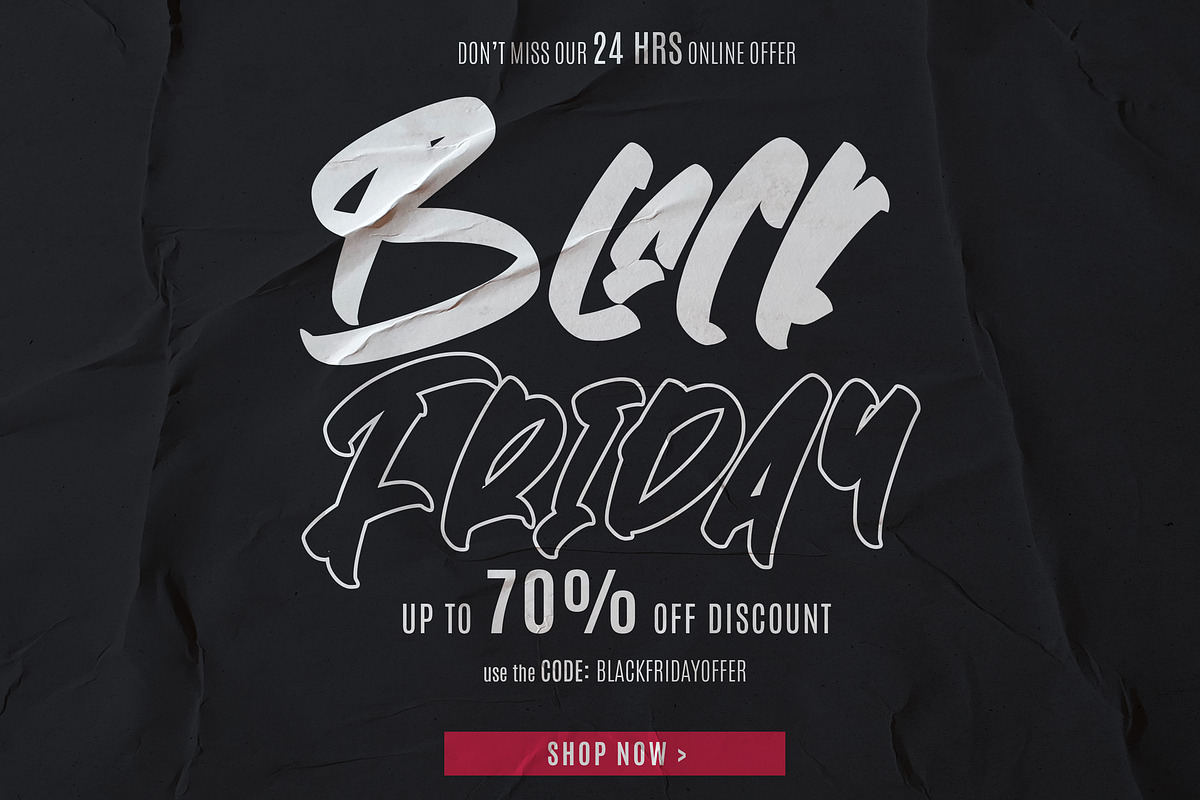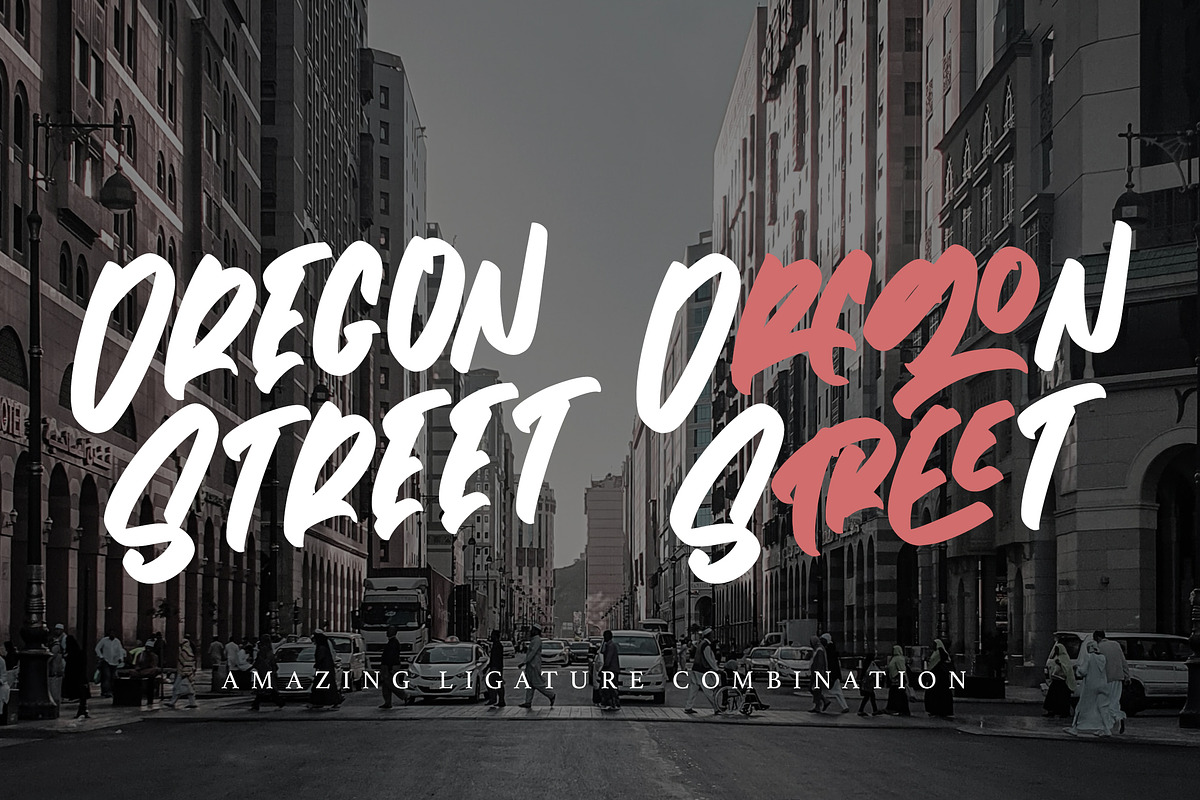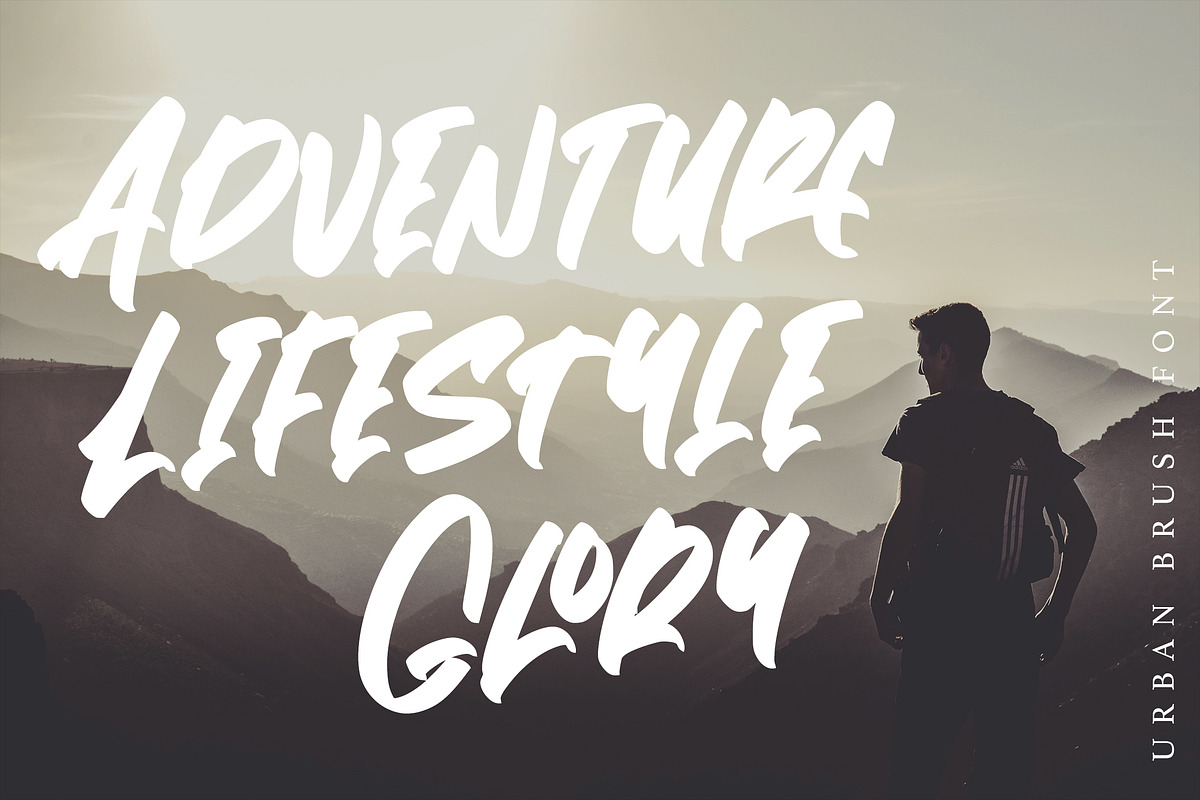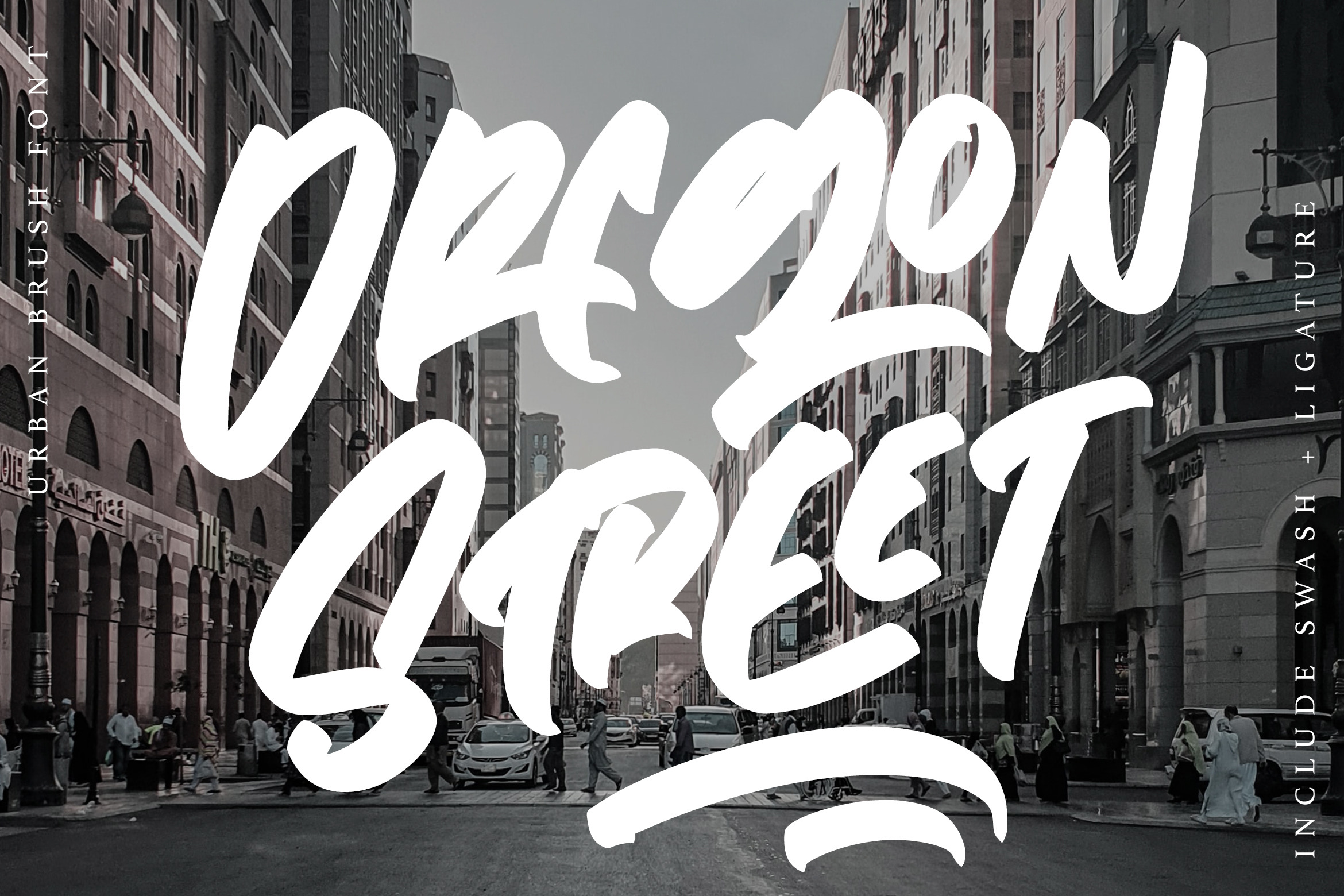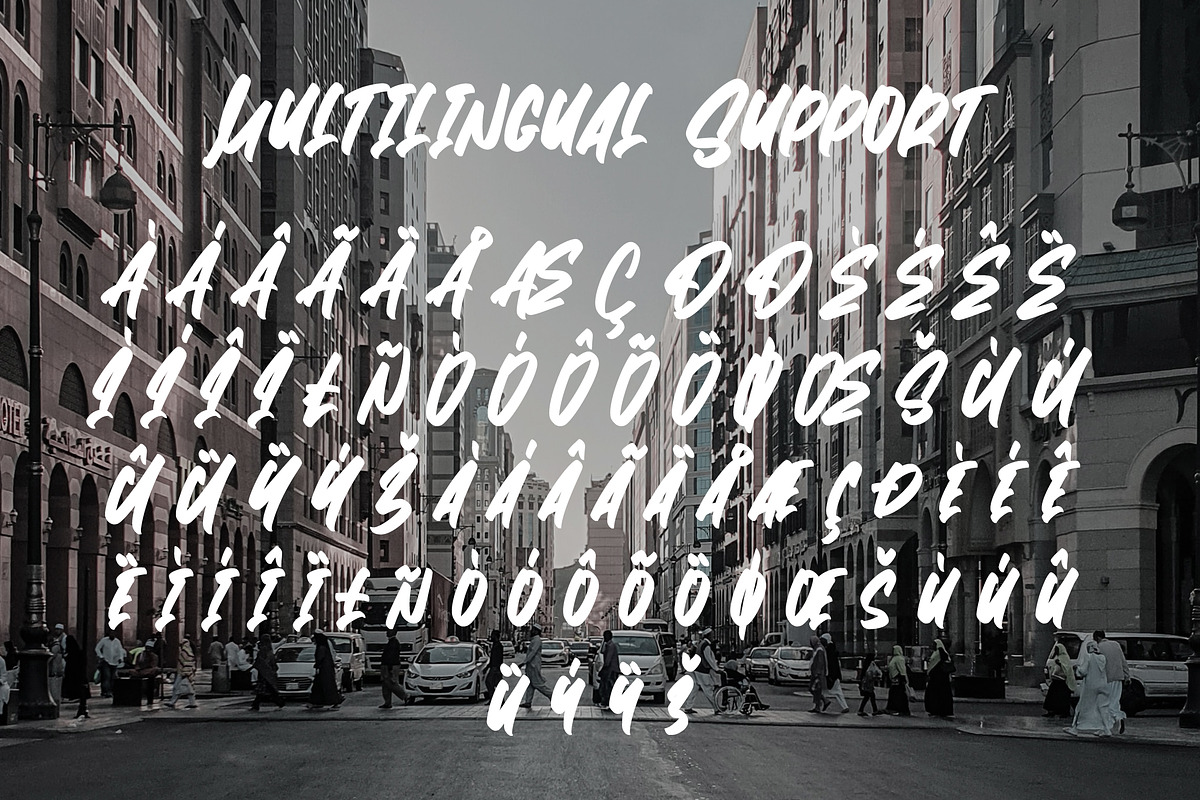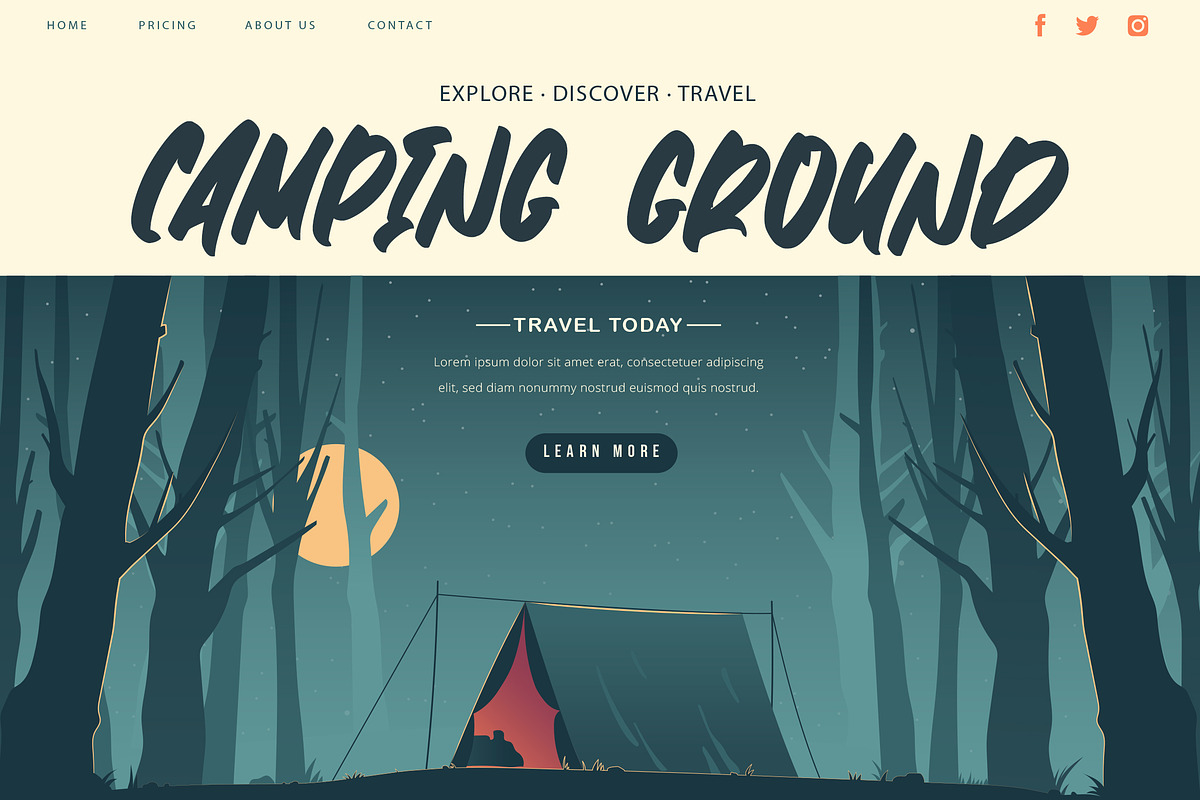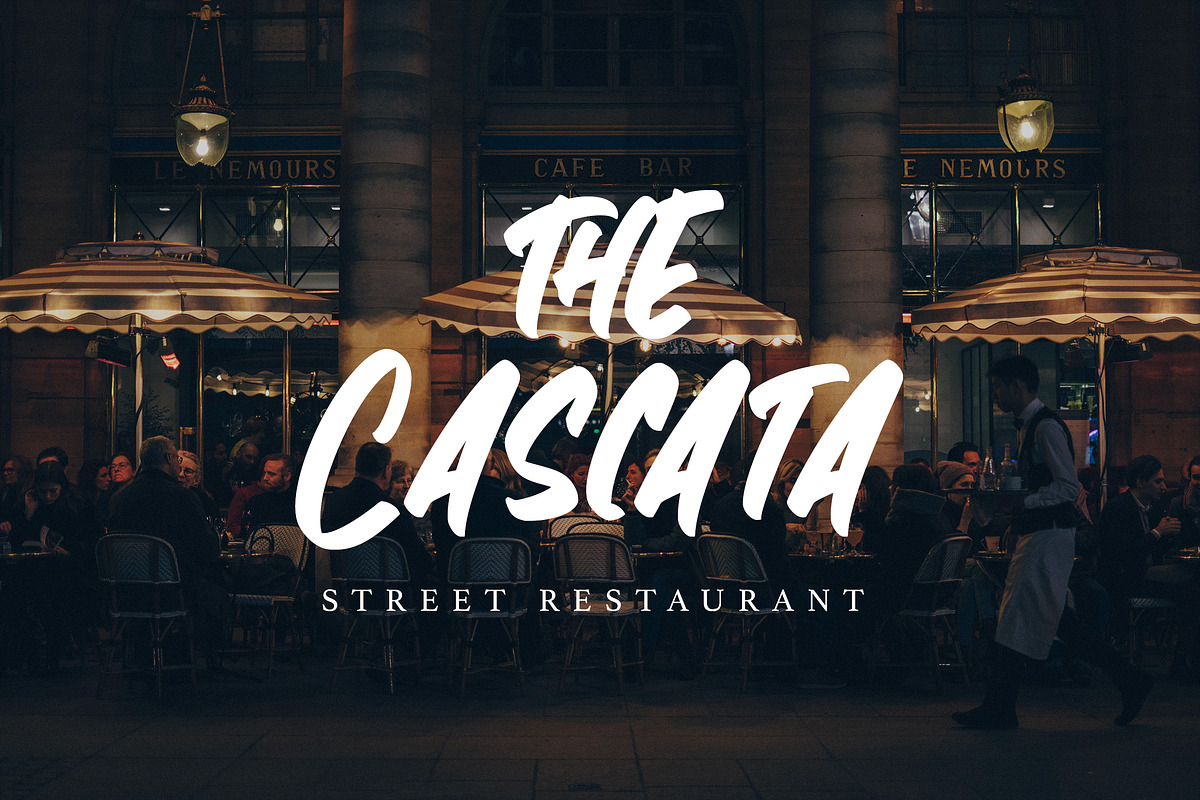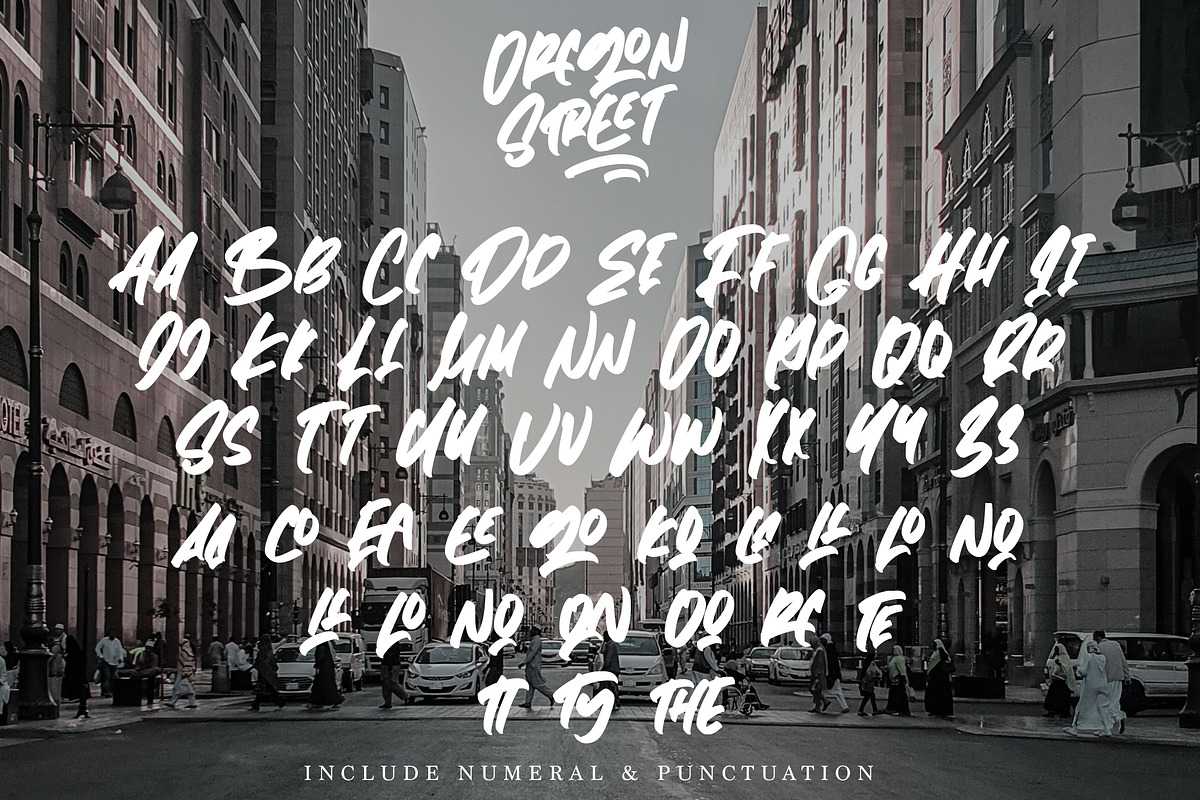
Oregon Street - Urban Brush Font
Oregon Street - Urban Brush Font with its distinctive character that can be easily implemented in your various design projects . Oregon Street came with opentype features such stylistic alternates, stylistic sets & ligatures good for logotype, poster, badge, book cover, tshirt design, packaging and any more.
Features : • Character Set A-Z • Numerals & Punctuations (OpenType Standard) • Accents (Multilingual characters) • Ligature